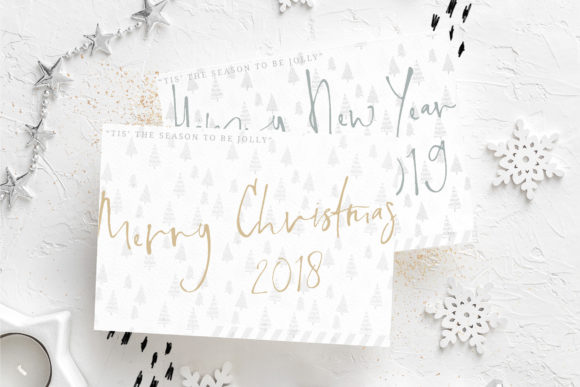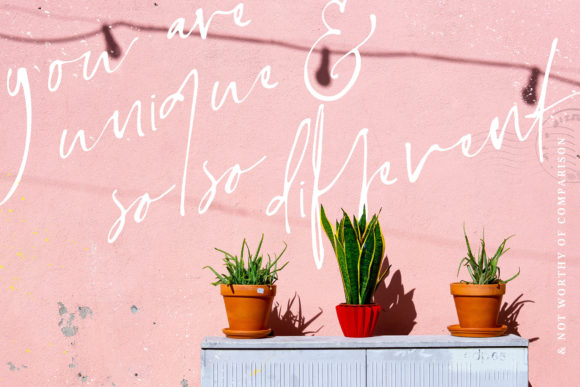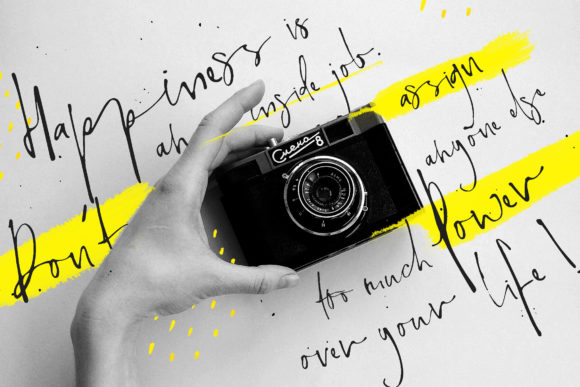
Introduction to Lenka Morris Font
The Lenka Morris is an amazing signature script font.
It has a very natural handwritten style which can be used to give your designs a personal feel .
Key Features of Lenka Morris Font
Why Choose Lenka Morris Font?
Lenka Morris Font offers exceptional quality and versatility, making it a valuable addition to your design toolkit. Whether you’re creating for personal projects or commercial use, Lenka Morris Font delivers professional results.